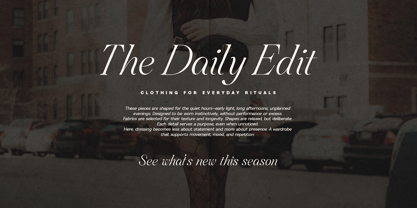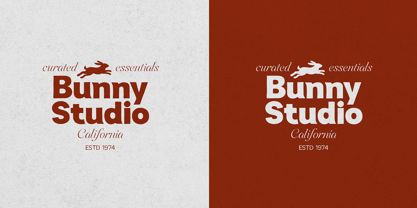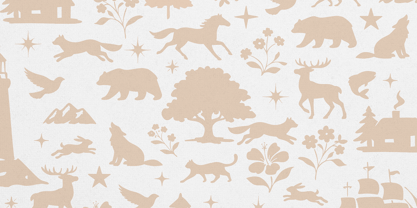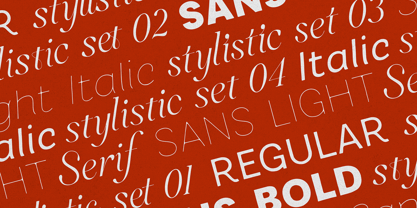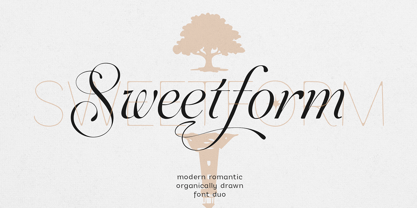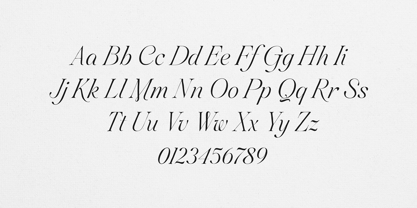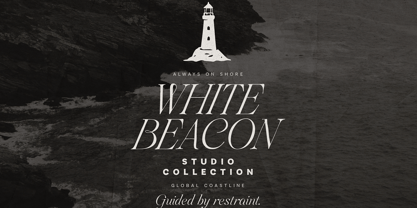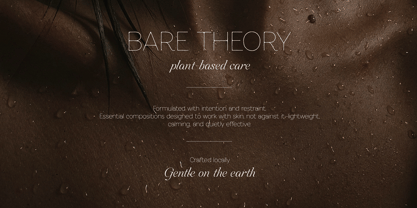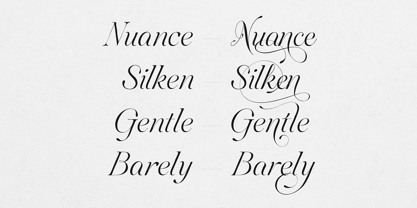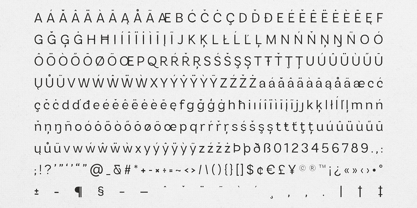
Sweetform
La familia tipográfica Sweetform fue diseñada por Vladimir Fedotov, Plamen Petrov y publicada por VP Creative Shop. Sweetform contiene 12 estilos y opciones de paquete familiar. Más información sobre esta familia
Sweetform is a refined, hand-crafted font family designed for modern brands that value warmth, elegance, and clarity. Blending expressive handwriting with structured simplicity, Sweetform gives you the freedom to create identities that feel both personal and professional. At its core, Sweetform pairs a handwritten serif with organic movement and subtle contrast alongside a clean modern sans serif, creating a balanced typography system ideal for branding, editorial design, packaging, and digital use.